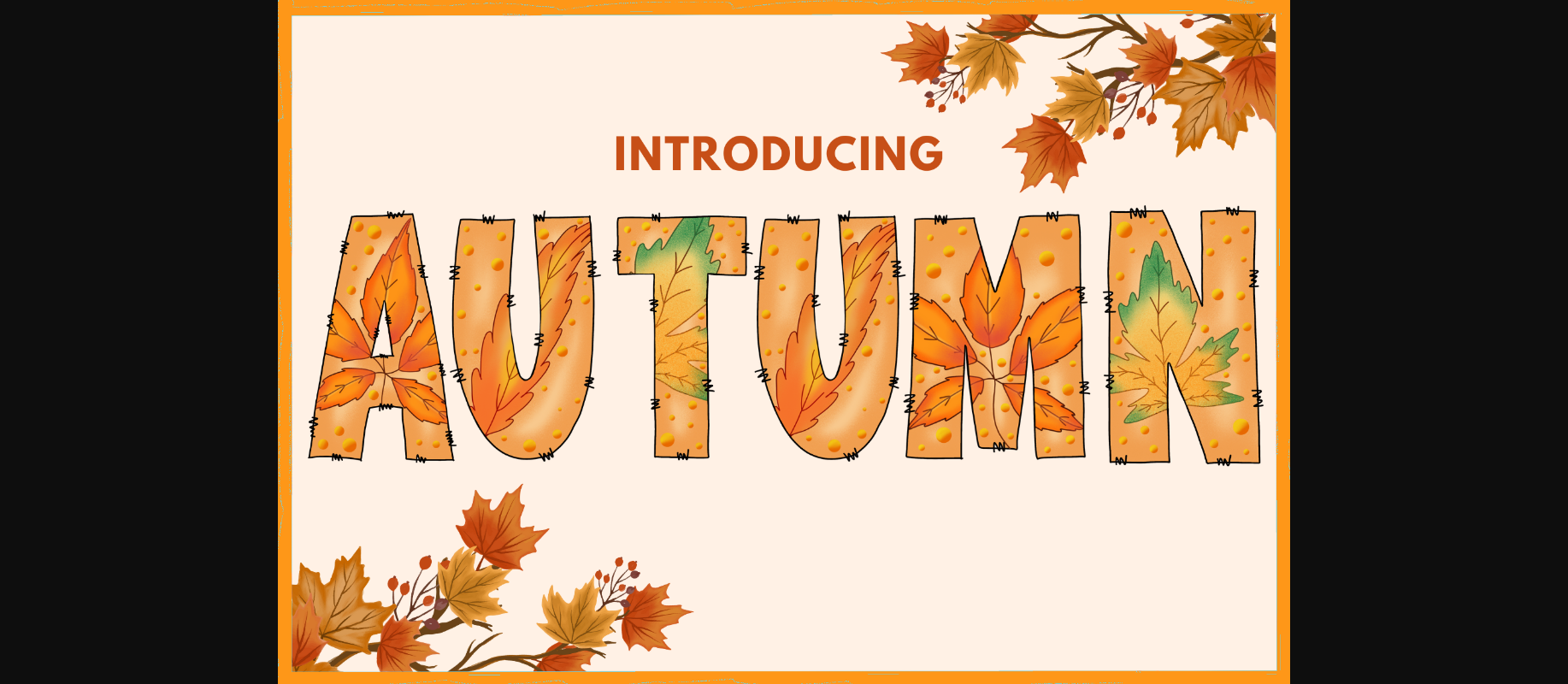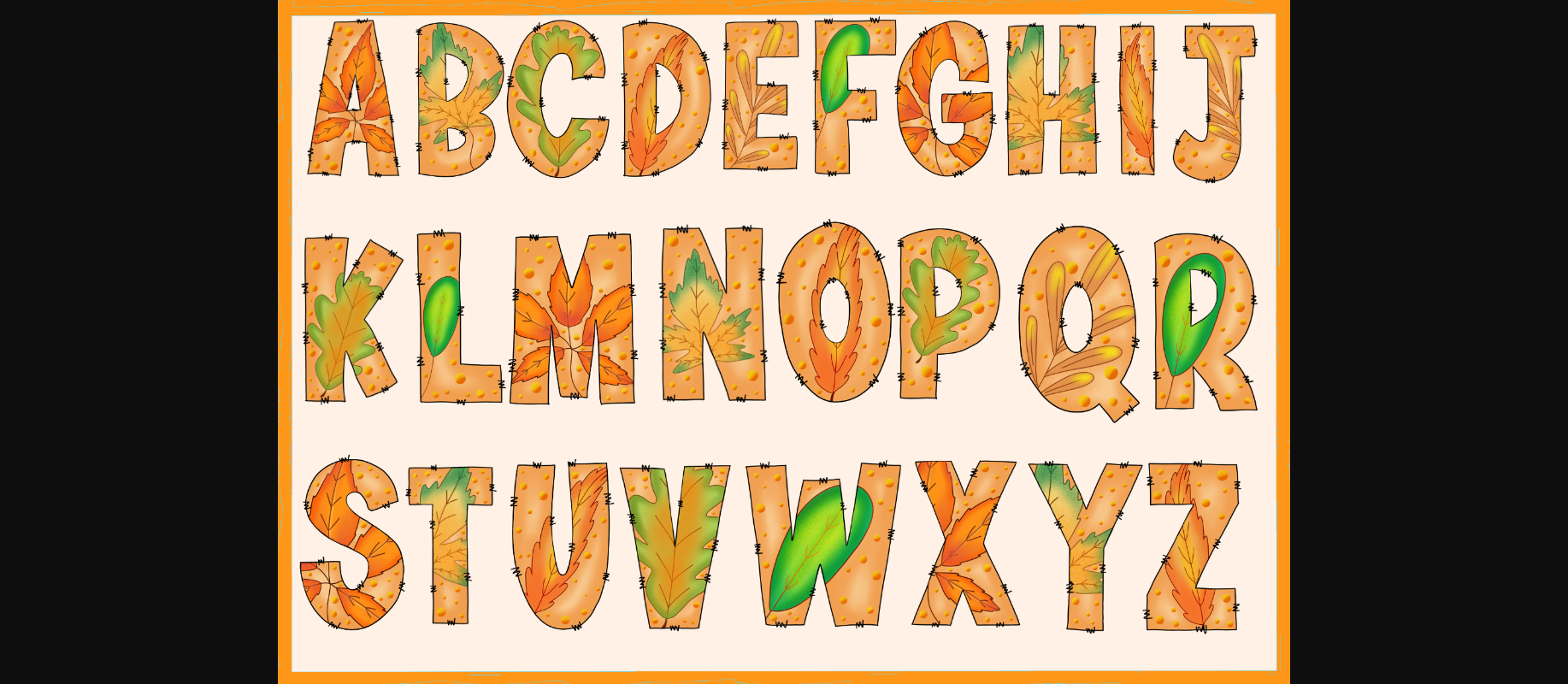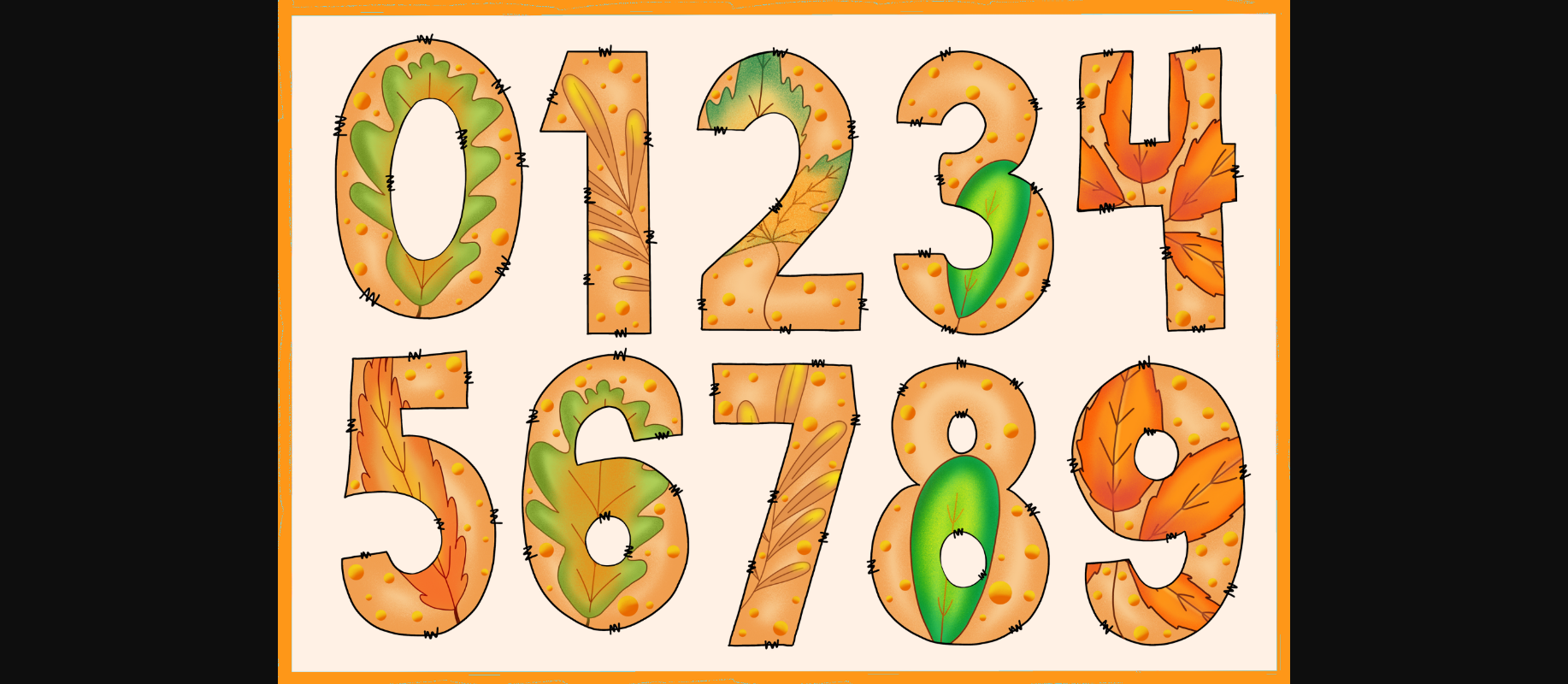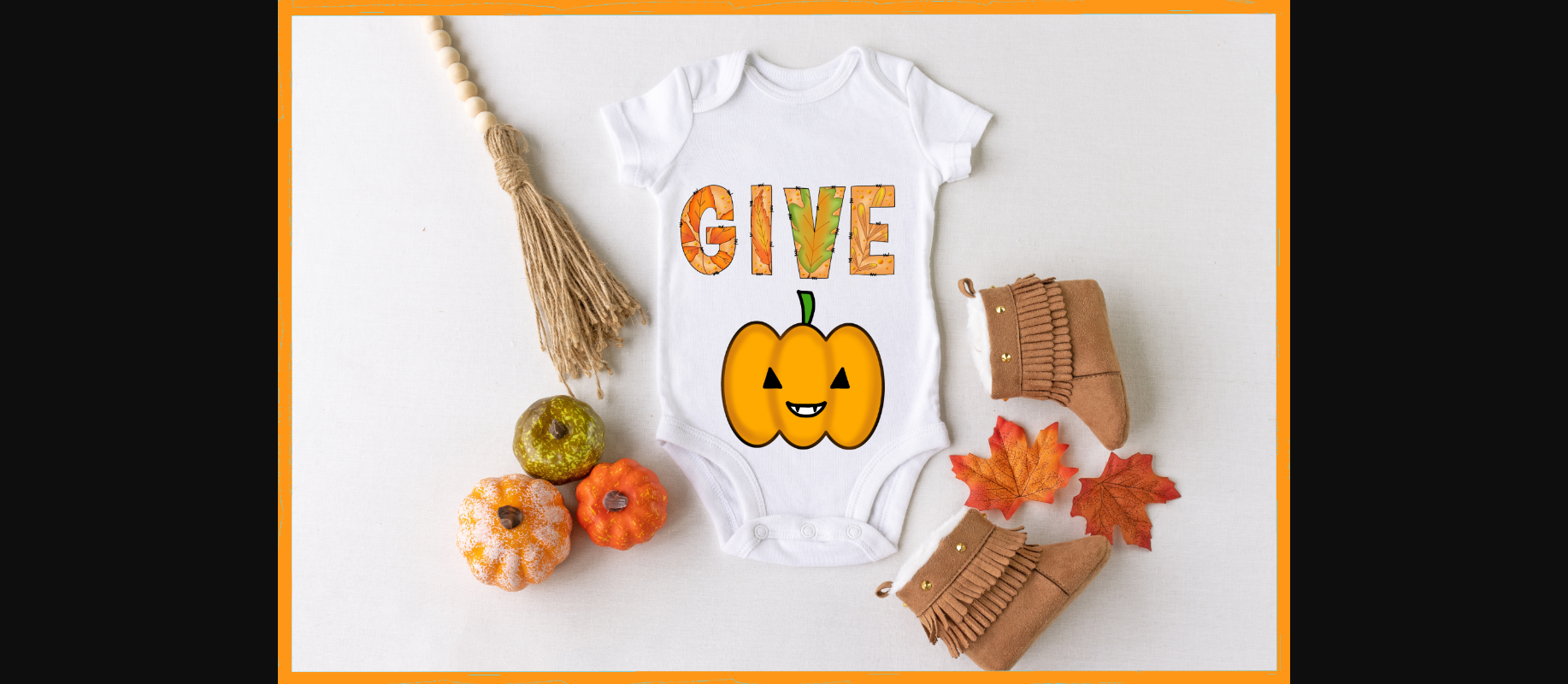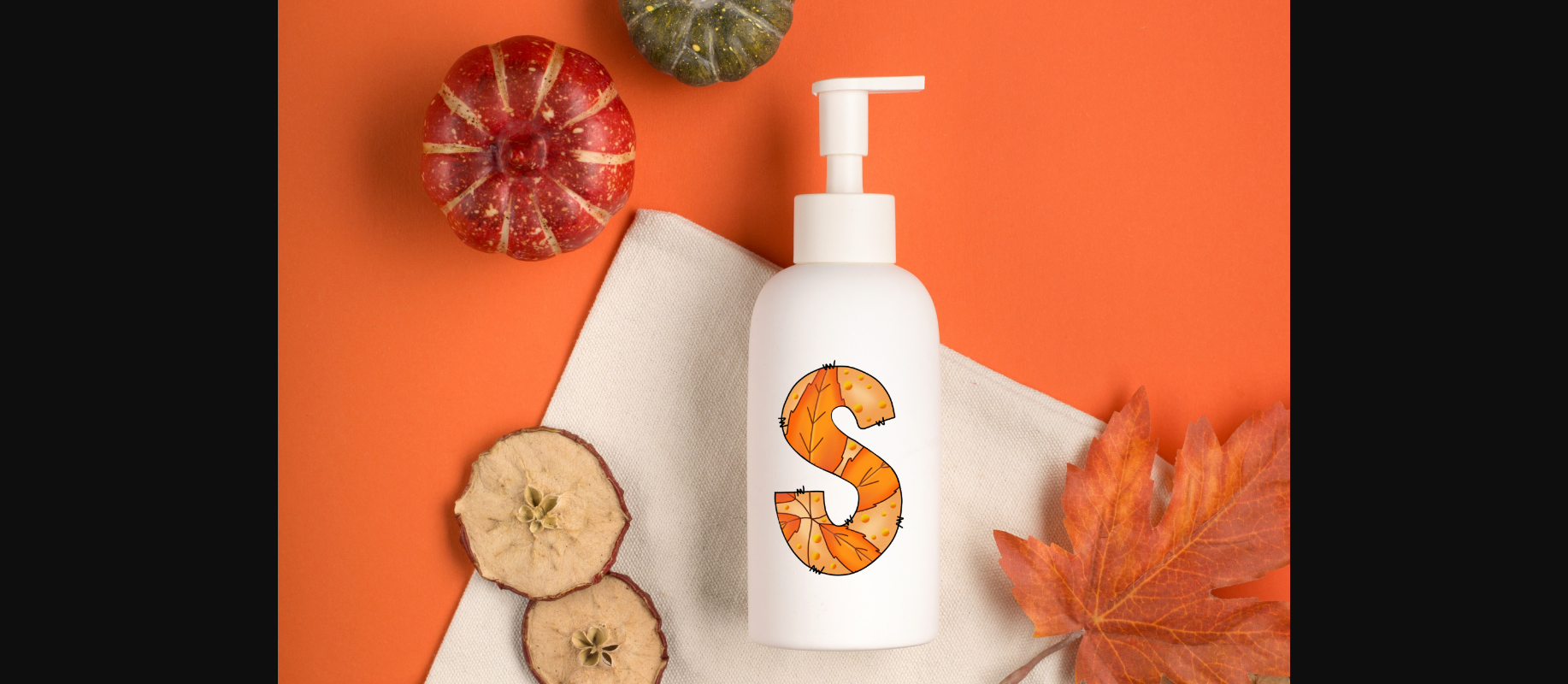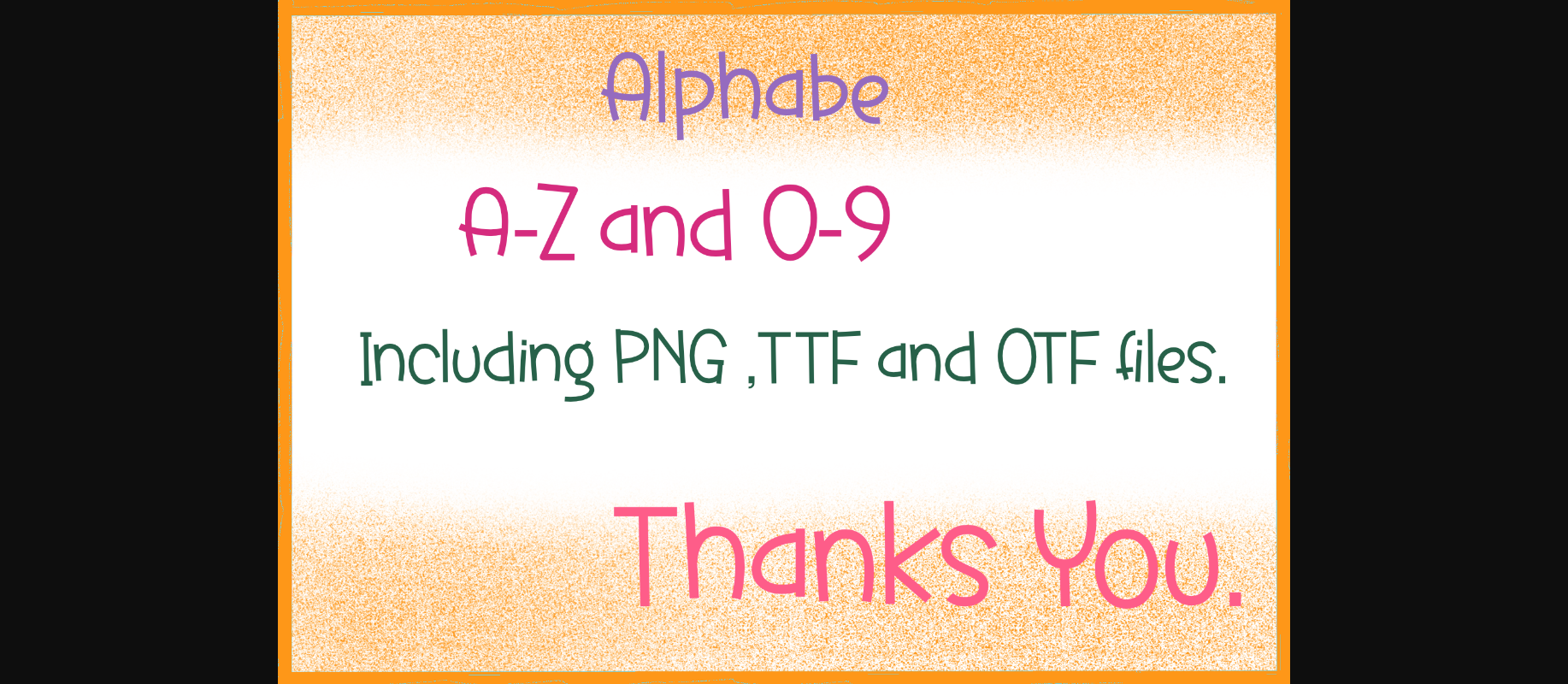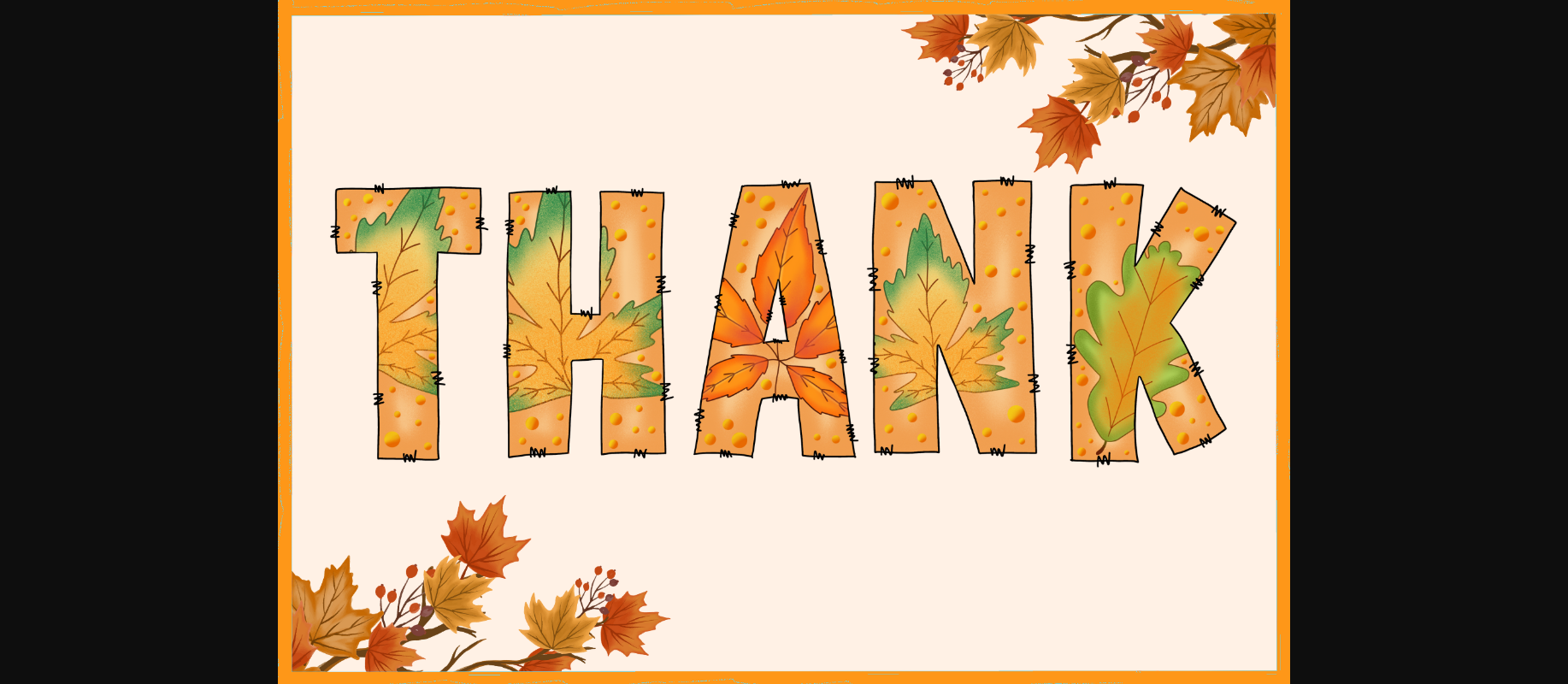
HomeDecorative FontsAutumn Font Decorative Fonts Autumn Font FacebookXPinterestWhatsApp 1 of 9 ... Autumn Font Poster 2... Autumn Font Poster 3... Autumn Font Poster 4... Autumn Font Poster 5... Autumn Font Poster 6... Autumn Font Poster 7... Autumn Font Poster 8... Autumn Font Poster 9... About Autumn Font Autumn is an adorable decorative font, perfect for all your fall themed projects. Add it to your designs and you will love the results! DOWNLOAD NOW People also explored Brecelets Font Handmade Font Spring Farmhouse Font Haystack Font Jadyn Maria Font Katelyn Marila Font Ndango Font The Cutter Font Sweet Monday Font 326 0 TagsAutumnAutumn Font Previous articleCrazy Rose FontNext articleMadison Font LEAVE A REPLY Cancel reply Comment: Please enter your comment! Name:* Please enter your name here Email:* You have entered an incorrect email address! Please enter your email address here Website: Save my name, email, and website in this browser for the next time I comment. Personal Use Free Screengem Personal Use Free Read more about this font Rellista Script Personal Use Free Read more about this font Archipellago Personal Use Free Read more about this font Geracella Personal Use Free Read more about this font BLOG The 10 Best Handwriting Fonts to Add Personality to Your Designs 10 of the Best Handwriting Fonts for Adding Personality to Your Designs There will undoubtedly be no other better choice than handwriting fonts to give... Fonts That Capture the Spirit of New York City Top 7 Google Fonts Alternatives for Faster and Privacy-Friendly Web Design (2025) Modern Sans-Serif Fonts That Brands Love in 2025